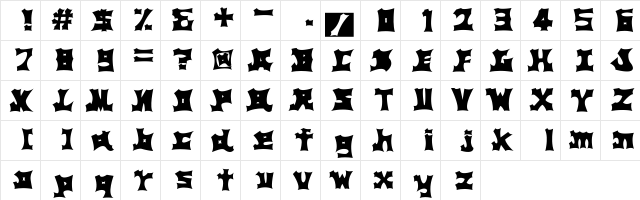
AsianWallpainting Regular
Design Context for AsianWallpainting Typeface
AsianWallpainting is a composed and adaptable typeface that performs quietly and consistently across a wide range of design contexts.